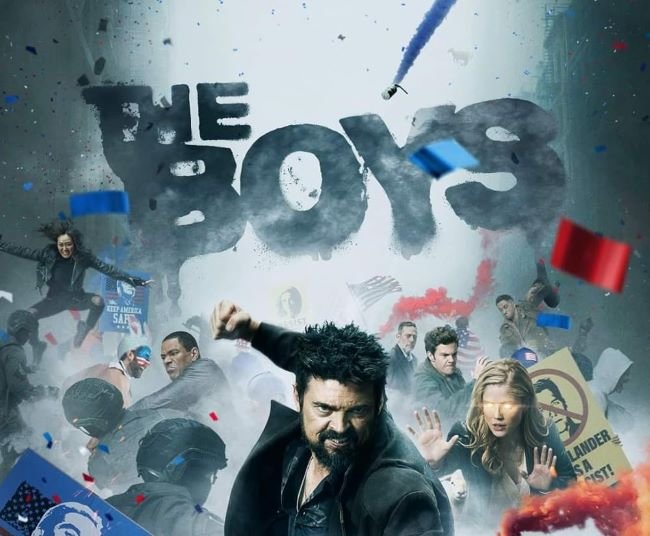
The Boys font shows up on Amazon Prime’s 2019 superhero satire with the same deliberate menace as Homelander showing up to a press conference — it looks like it belongs to the genre it’s participating in, but something about the distressed, block-style treatment signals that whatever follows will not be playing by the genre’s usual rules. The title lettering sits in the heavy, rough-edged display tradition with a street-level, deliberately un-corporate aesthetic: the typography of graffiti, protest banners, and the kind of signs that get put up when official channels have failed. The freely available The Boys Font captures this raw, rebellious energy.